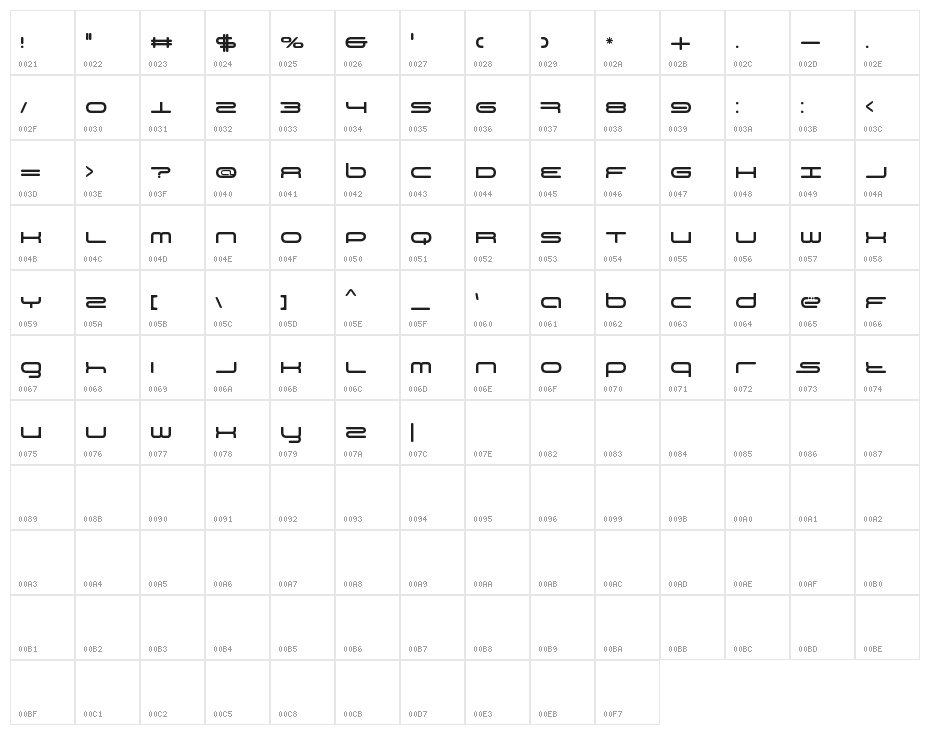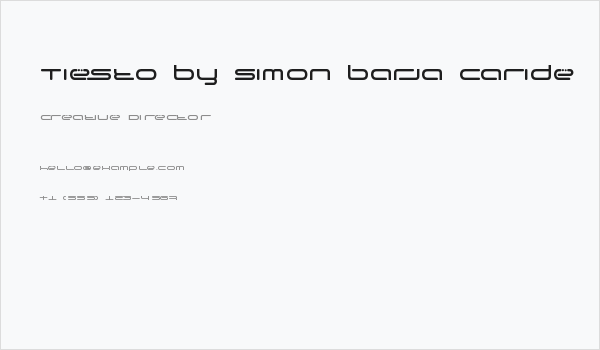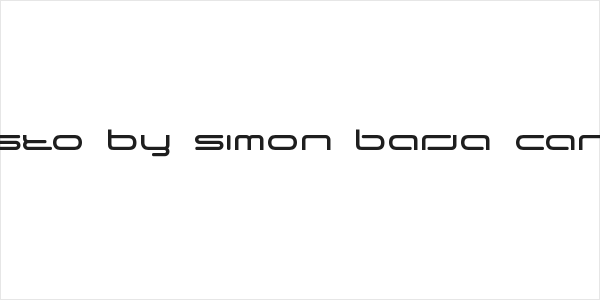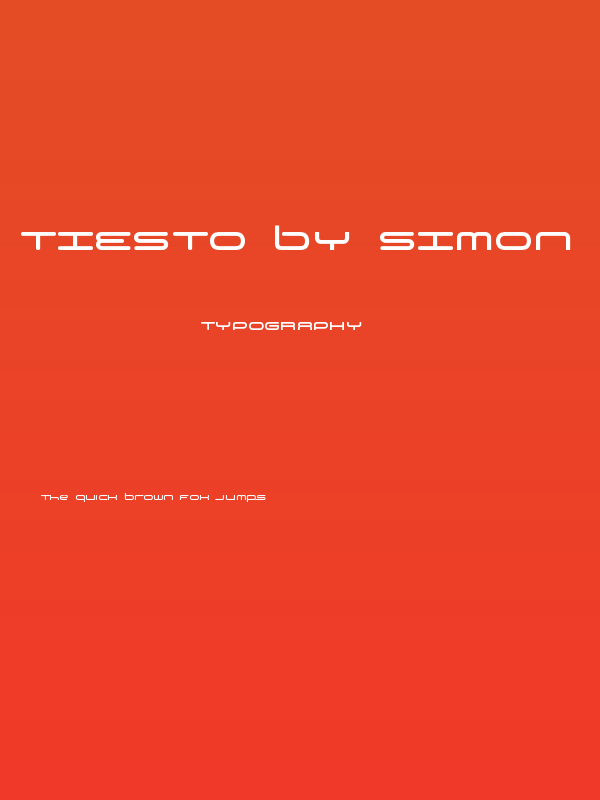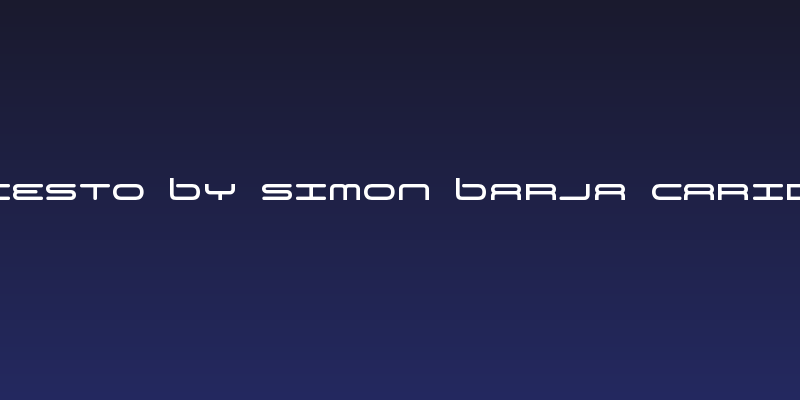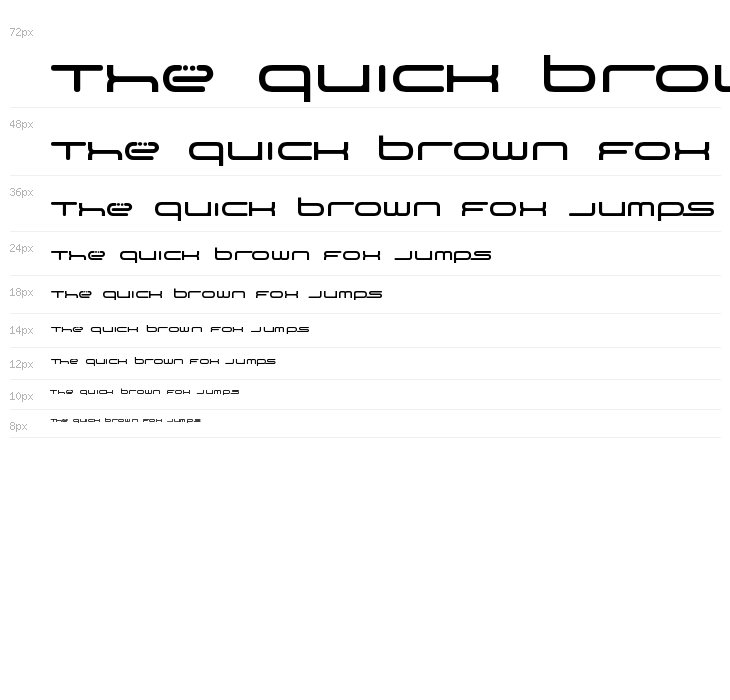
Tiesto by Simon Barja Caride Font
Tiesto by Simon Barja Caride Description
This font features a modern, futuristic design with a geometric structure. The characters are sleek and rounded, with consistent stroke widths that give it a clean and streamlined appearance. The uppercase and lowercase letters maintain a uniform height, enhancing readability while adding a unique style. The numerals and special characters follow the same design principles, ensuring a cohesive look across all elements. The font's minimalistic approach makes it versatile for various applications, from digital interfaces to print media. Its distinct style is ideal for projects that require a contemporary and innovative touch.
| Use Case | Headlines, Logos, Digital interfaces |
| Proposed Projects | Ideal for tech branding, digital interfaces, futuristic designs, and modern advertising. |